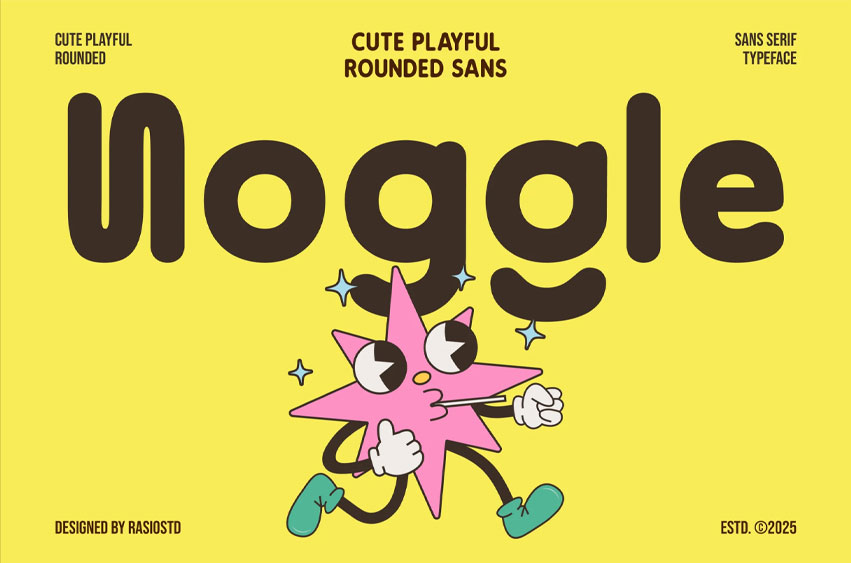
Noggle Font is a cute playful rounded sans serif font designed to bring fun, joy, and friendliness to your creative projects. With its soft curves, bold condensed shapes, and quirky alternates, Noggle works perfectly for kids fonts, fun fonts, cute handwriting, and modern round fonts.
This typeface includes uppercase, lowercase, numerals, punctuation, fractions, and alternates, making it highly versatile for both digital and print projects. Whether you are working on logo fonts, celebration posters, branding for kids, or playful modern sans serif design, Noggle adapts effortlessly.
Its approachable style makes it suitable for food fonts, feminine branding, cartoon graphics, wedding invitations, or even retro playful logos. The rounded edges, geometric balance, and friendly flow make Noggle ideal for designers who want a soft, bold, and modern sans serif font with personality.
Relevance and Use Cases is perfect for logo design, kids book covers, food packaging, branding, wedding invitation, cartoon graphics, social media posts, fun party flyers, poster design, greeting cards, product packaging, feminine branding, retro-inspired logos, cute merchandise, playful web design, minimalist bold headlines, celebration banners, boho projects, creative doodles.